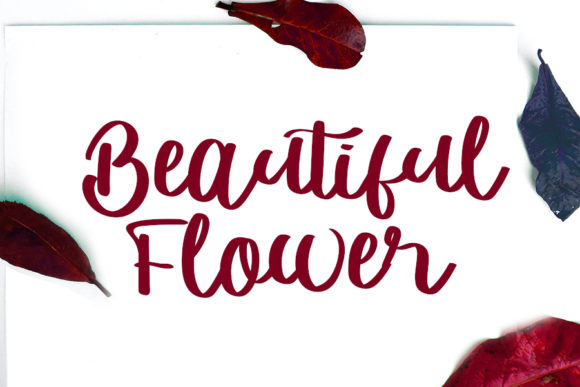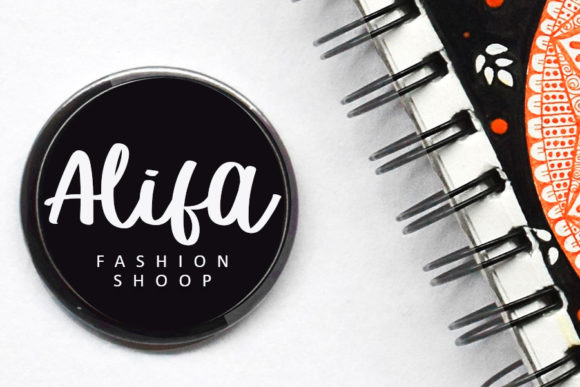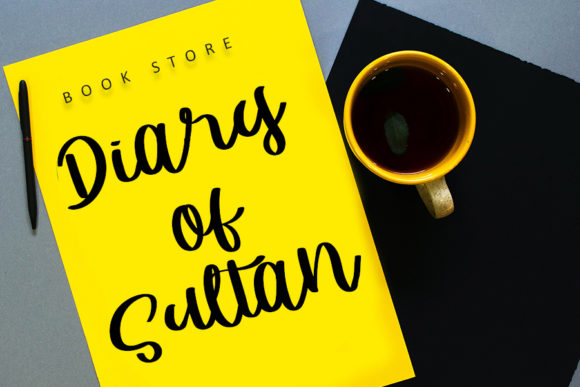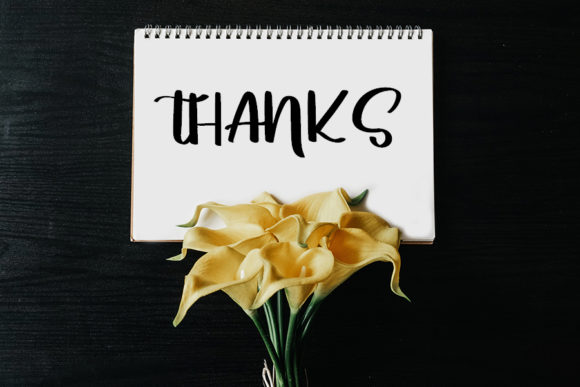
Introduction to Monatifa Font
Monatifa is a natural and sweet handwritten font.
Not too thin and not too thick, balanced and varied, Monatifa was designed to enhance the beauty of your projects .
Key Features of Monatifa Font
Why Choose Monatifa Font?